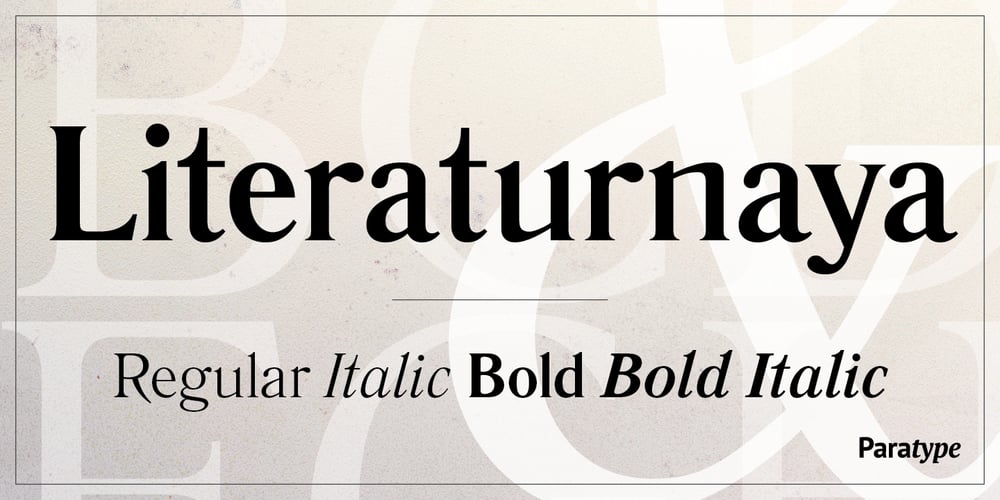
Literaturnaya
Literaturnaya font
Literaturnaya Font Family was designed by Lyubov Kuznetsova and published by ParaType. Literaturnaya contains 4 styles and family package options. Musician with the stage name of Pelle Piano, with an interest in irregular and informal lettering, 1950s style lettering, and a childhood influenced by Letraset sheets and a Letraset catalog.